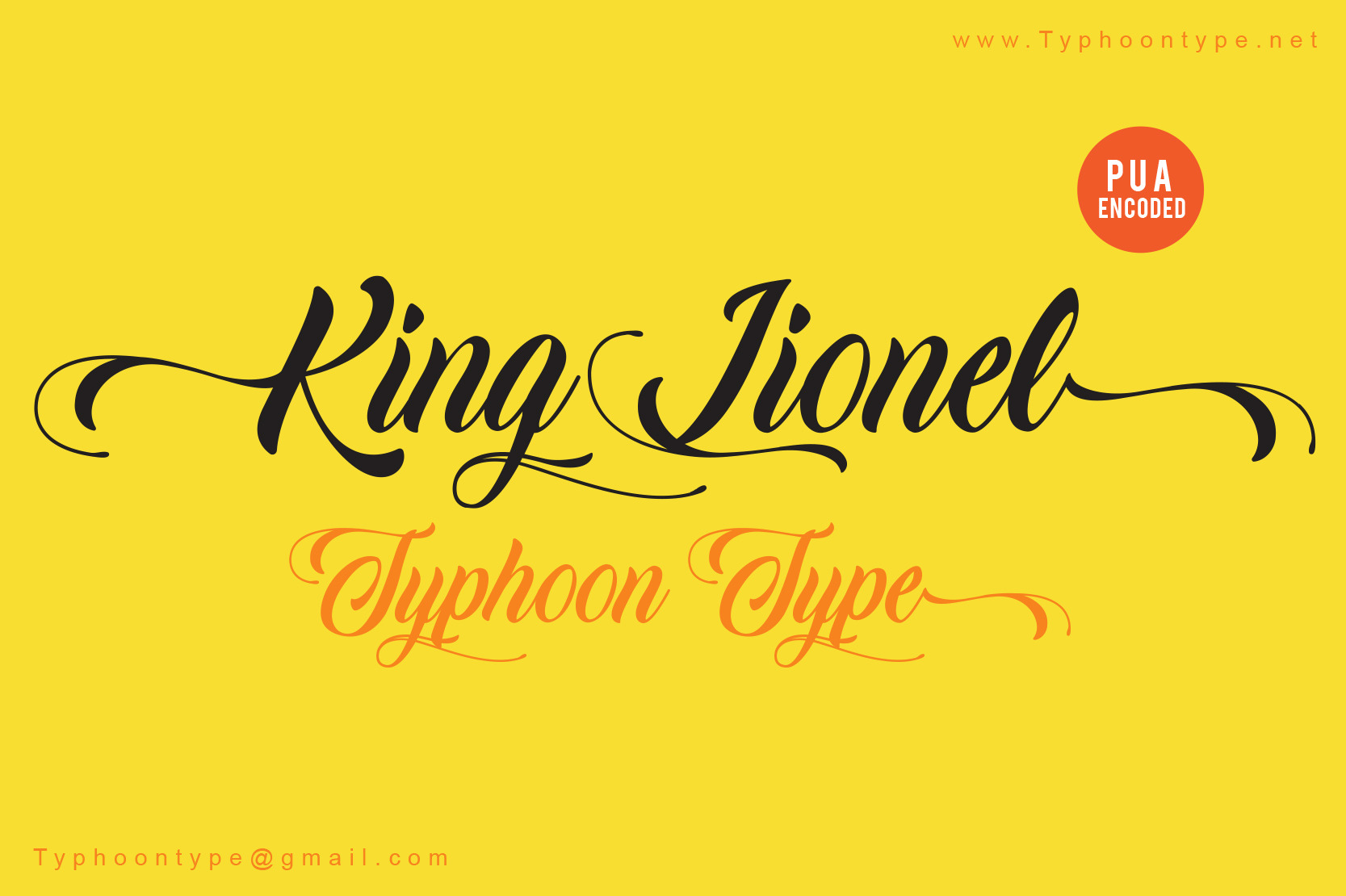
King Lionel font
King Lionel : Type ) after word to get the Underline swash. Example : King Lionel) This Font perfect for logos, name tag, advertising, product packaging, clothing, social media & greeting cards.